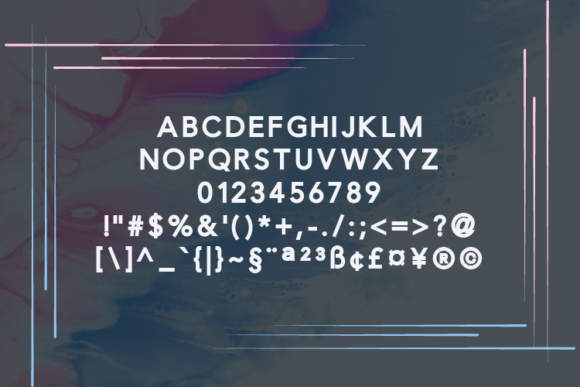
Gothic Extra Black Font: Elevate Your Designs with Modern Elegance
In the world of typography, fonts play a crucial role in conveying the message and aesthetic of a design. For designers and crafters looking for a modern and elegant sans serif font, Gothic Extra Black is an excellent choice. This versatile font is perfect for a wide range of projects, from headings to smaller body text, and pairs well with script and handwritten fonts.
What is Gothic Extra Black Font?
Gothic Extra Black is a contemporary sans serif font that exudes elegance and sophistication. Its clean lines, precise curves, and bold weight make it an ideal choice for designers seeking a modern look. The font’s sleek appearance allows it to stand out in various design contexts, from digital media to print materials.
Key Features of Gothic Extra Black Font
- Modern and Elegant Design: Gothic Extra Black boasts a sleek and refined design, perfect for creating visually appealing text.
- Sans Serif Style: The font’s sans serif style ensures clean and clear readability, making it suitable for both headings and body text.
- Versatility: Gothic Extra Black can be used in a variety of design projects, including posters, brochures, websites, and more.
- Excellent Pairing Options: This font pairs well with script and handwritten fonts, allowing designers to create unique and harmonious typography combinations.
Use Cases for Gothic Extra Black Font
Gothic Extra Black is a versatile font that can be used in various design projects, including:
- Headings and Titles: The font’s bold weight and elegant design make it perfect for headings and titles, adding a touch of sophistication to any design.
- Posters and Flyers: Gothic Extra Black can be used to create eye-catching posters and flyers that grab attention and convey a message effectively.
- Web Design: The font’s clean and modern design ensures excellent readability on digital screens, making it suitable for website headers, titles, and body text.
- Branding and Packaging: Gothic Extra Black can be used to create elegant and memorable brand identities, including logos, labels, and packaging materials.
Why Choose Gothic Extra Black Font?
With so many fonts available, why choose Gothic Extra Black? Here are a few reasons:
- Unique and Modern Design: Gothic Extra Black offers a fresh and contemporary look that sets it apart from other fonts.
- Excellent Readability: The font’s clean lines and precise curves ensure excellent readability, even at smaller font sizes.
- Versatility: Gothic Extra Black can be used in various design contexts, making it a valuable addition to any designer’s font collection.
Tips for Using Gothic Extra Black Font
To get the most out of Gothic Extra Black, consider the following tips:
- Pair with Script Fonts: Combine Gothic Extra Black with script fonts for a harmonious and elegant typography combination.
- Use for Headings and Titles: Take advantage of the font’s bold weight and elegant design by using it for headings and titles.
- Experiment with Font Sizes: Gothic Extra Black can be used at various font sizes, from large headings to smaller body text.
In conclusion, Gothic Extra Black is a modern and elegant sans serif font that offers a unique and sophisticated look. Its versatility, excellent readability, and pairing options make it an excellent choice for designers and crafters seeking a high-quality font for their next project.